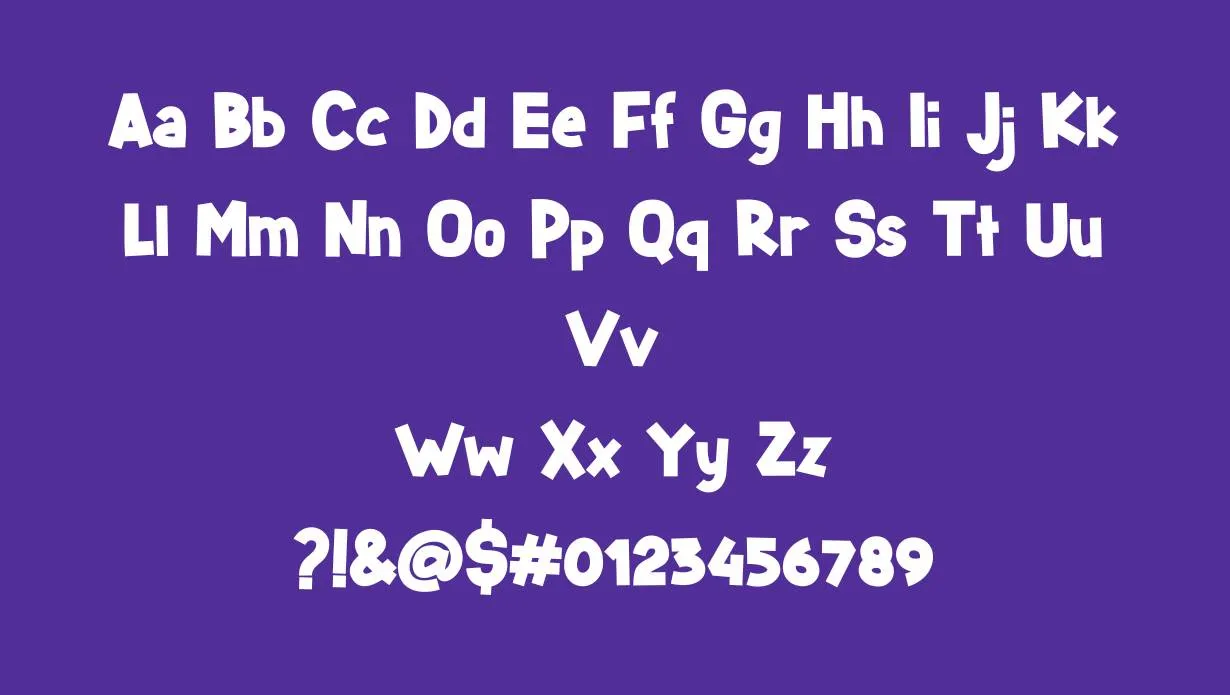
Starlight font is like a gentle glow for your words, creating a magical and enchanting feeling. It’s great for designs that want to evoke a sense of wonder and dreaminess.
Whether you’re working on a fantasy-themed project or content that aims to be whimsical, Starlight font turns your text into a constellation of dreams. Each letter becomes a shimmering star, adding a touch of magic to your message.
| Name | Starlight Font |
| Designer | Jos Gandos |